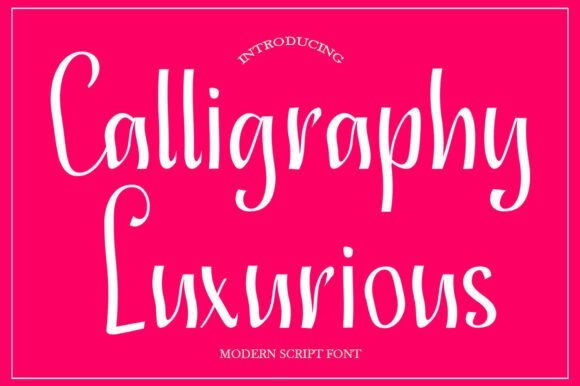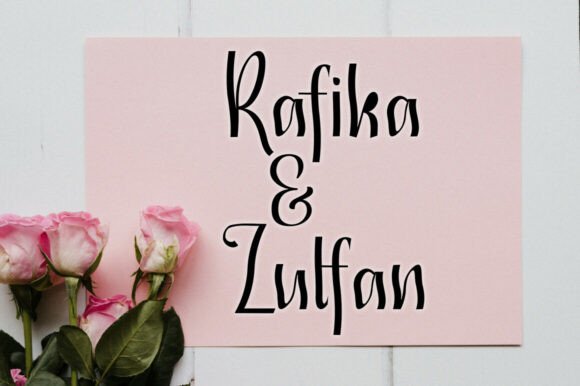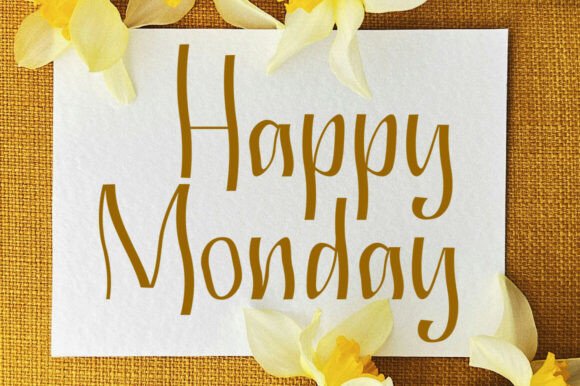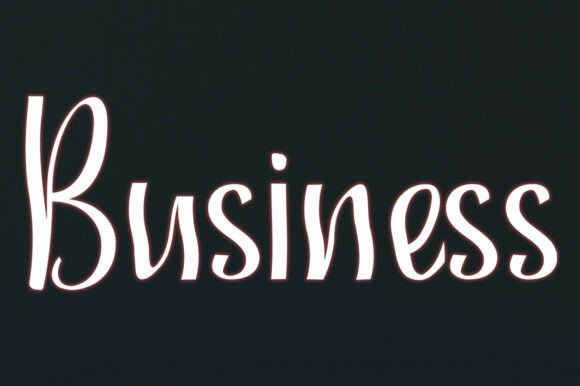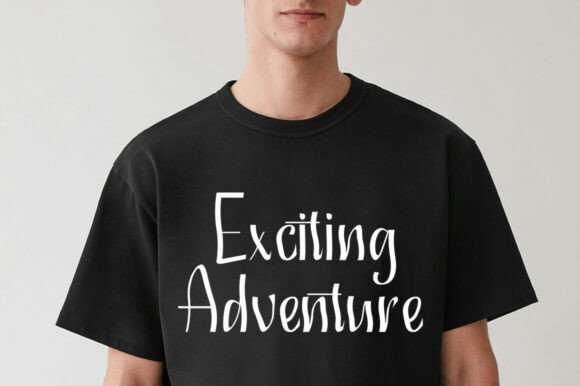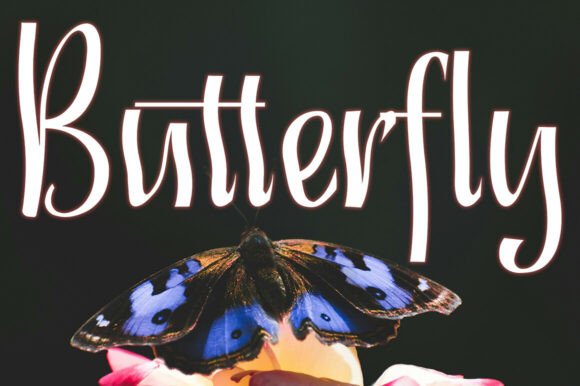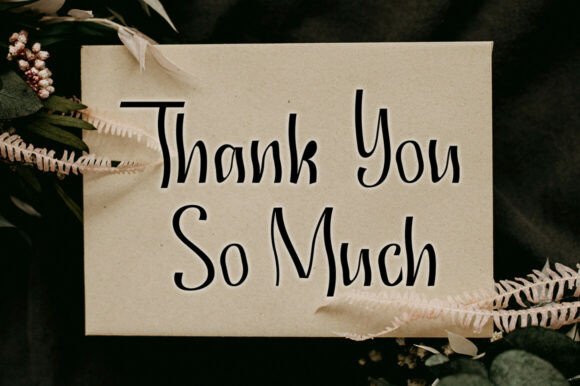
Unleash the Art of Elegant Design
Have you ever stared at a blank page, waiting for the perfect font to come to life? The blank slate can be intimidating, but it’s also a chance to create something truly special. For designers, the right font can make all the difference in capturing the essence of a brand or concept.
That’s where the Calligraphy Luxurious Font comes in – a beautiful, cursive handwriting font that adds a touch of sophistication to any design. Whether you’re creating a wedding invitation, a fashion lookbook, or a marketing campaign, this font is sure to make your designs stand out. With its soft, elegant lines and romantic feel, the Calligraphy Luxurious Font is a must-have for any designer looking to add a luxurious touch to their work.
Calligraphy Luxurious Font Key Features
- Font Family: Calligraphy Luxurious Font is a high-end script font, ideal for creating luxurious and elegant designs.
- Unique Characteristics: This luxurious font features intricate swashes, flourishes, and ornaments, making it perfect for creating high-end invitations, wedding designs, and luxury branding materials.
Designer Review: Calligraphy Luxurious Font
At first glance, Calligraphy Luxurious Font seems like a stunning addition to any design project. ✨ Its elegant, cursive script is perfect for creating luxurious and high-end feels, making it ideal for branding, advertising, and packaging design.
One of the standout features of this font is its versatility. ✨ It’s available in a range of weights, from light to bold, allowing you to tailor the look to suit your design needs. Additionally, the font’s subtle flourishes and ligatures add a touch of sophistication, making it perfect for formal or high-end applications.
However, there are some limitations to consider: ⚠️ The font can be a bit too ornate for some designs, making it difficult to read at smaller font sizes. Additionally, the font’s complexity can make it challenging to pair with other fonts, which may limit its usability in certain projects.
Overall, I’d say that Calligraphy Luxurious Font is a solid choice for designers looking to add a touch of luxury to their designs. While it may not be the most versatile font, its unique character and elegant script make it a great addition to any design toolkit.
Recommendation:
- Use for high-end branding, advertising, and packaging design
- Pair with simple, modern fonts to balance out the complexity
- Avoid using at small font sizes or in complex layouts
To get the most out of Calligraphy Luxurious Font, experiment with different font sizes, colors, and combinations with other fonts.
Use it to create elegant headings, titles, and quotes.
It’s also suitable for invitations, wedding stationery, and other formal events.
Calligraphy Luxurious Font is ideal for:
Formal event invitations
Elegant headings and titles
Quotes and inspirational text